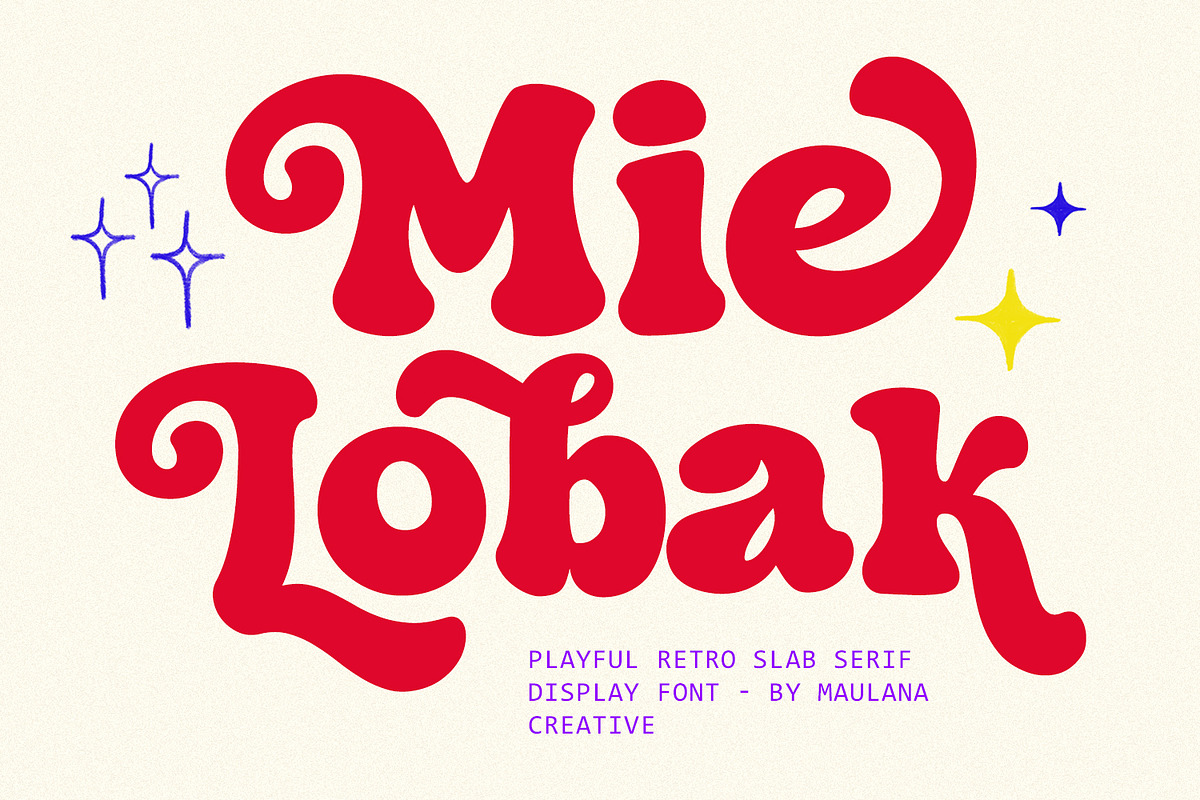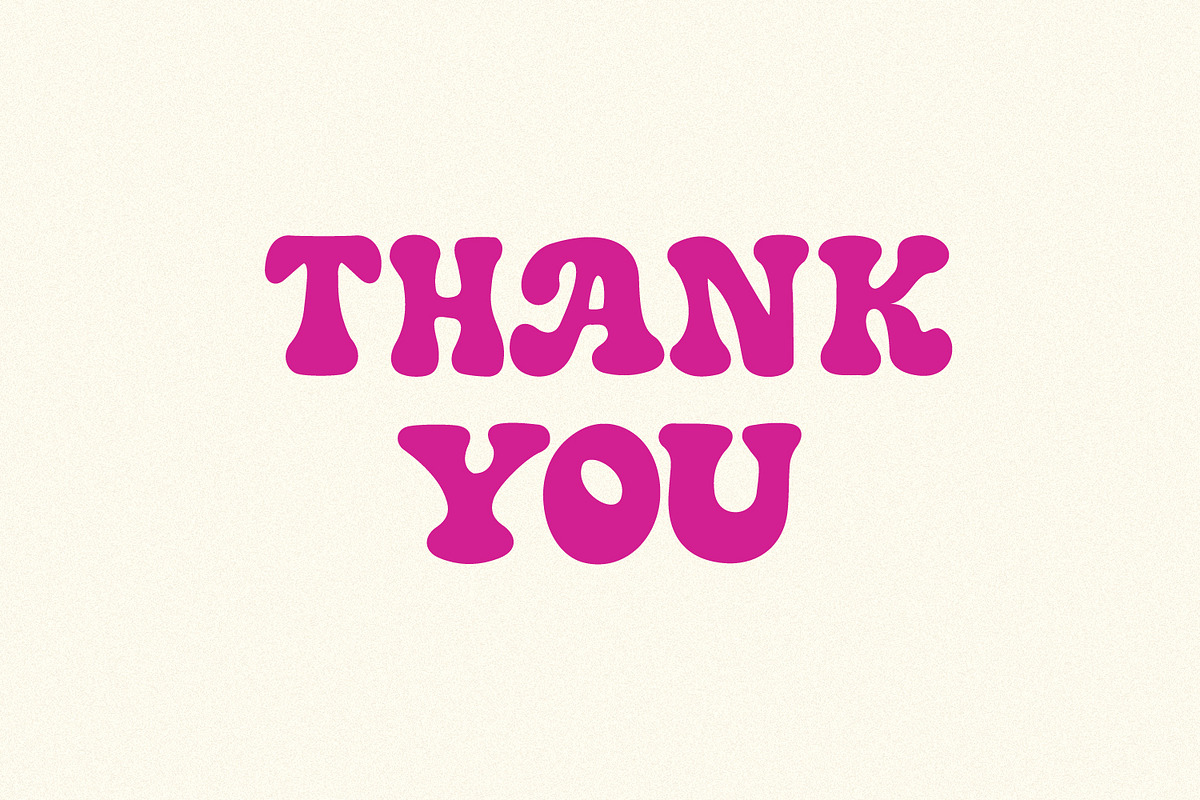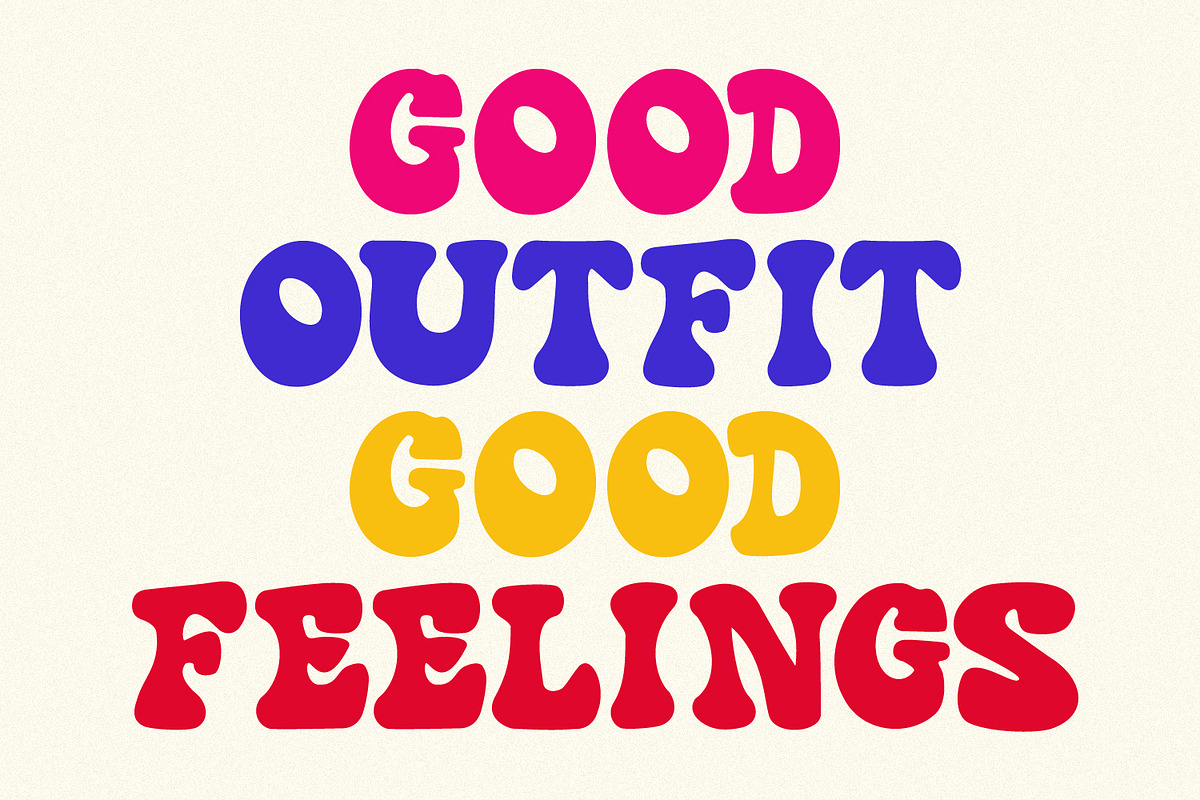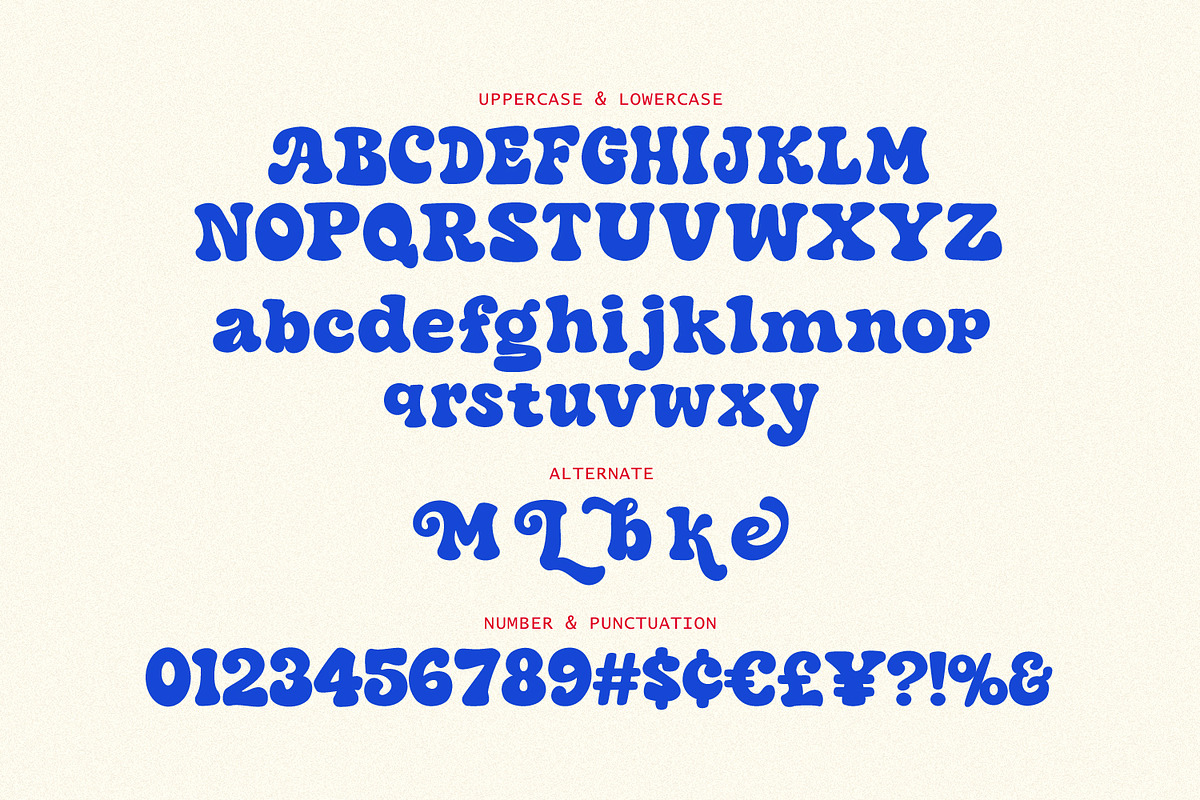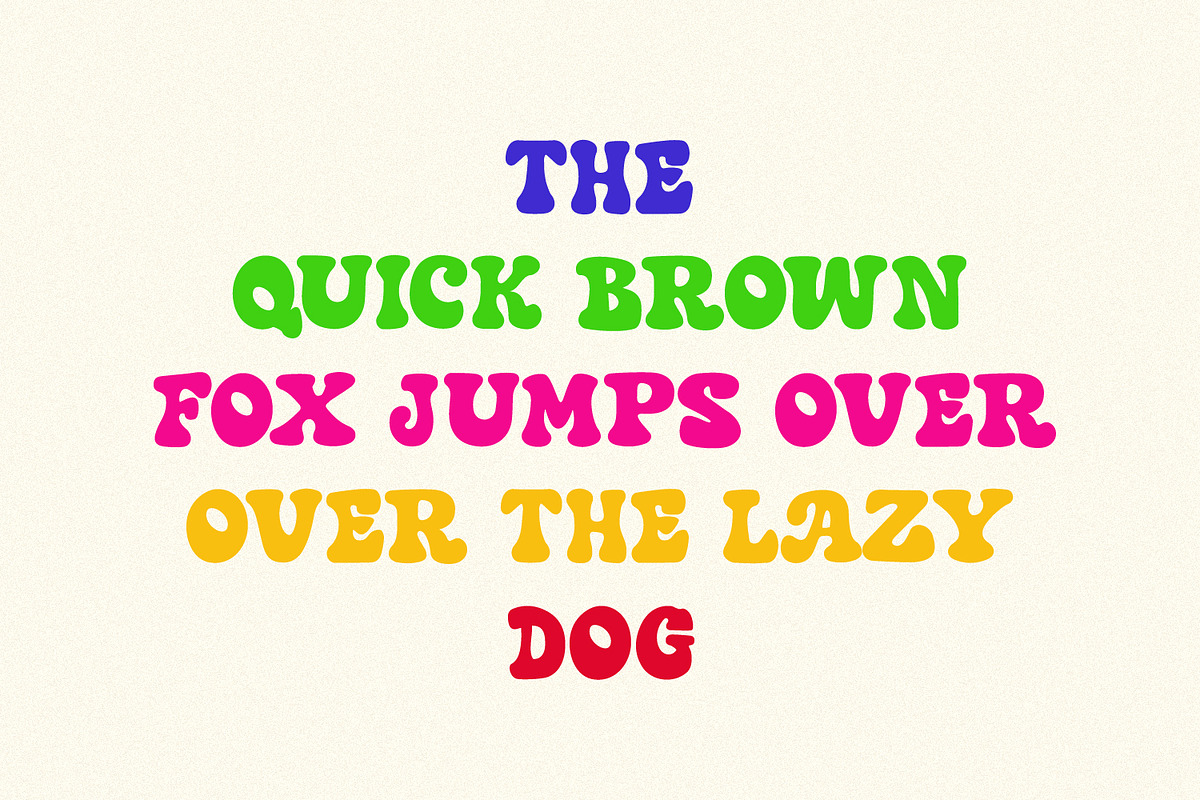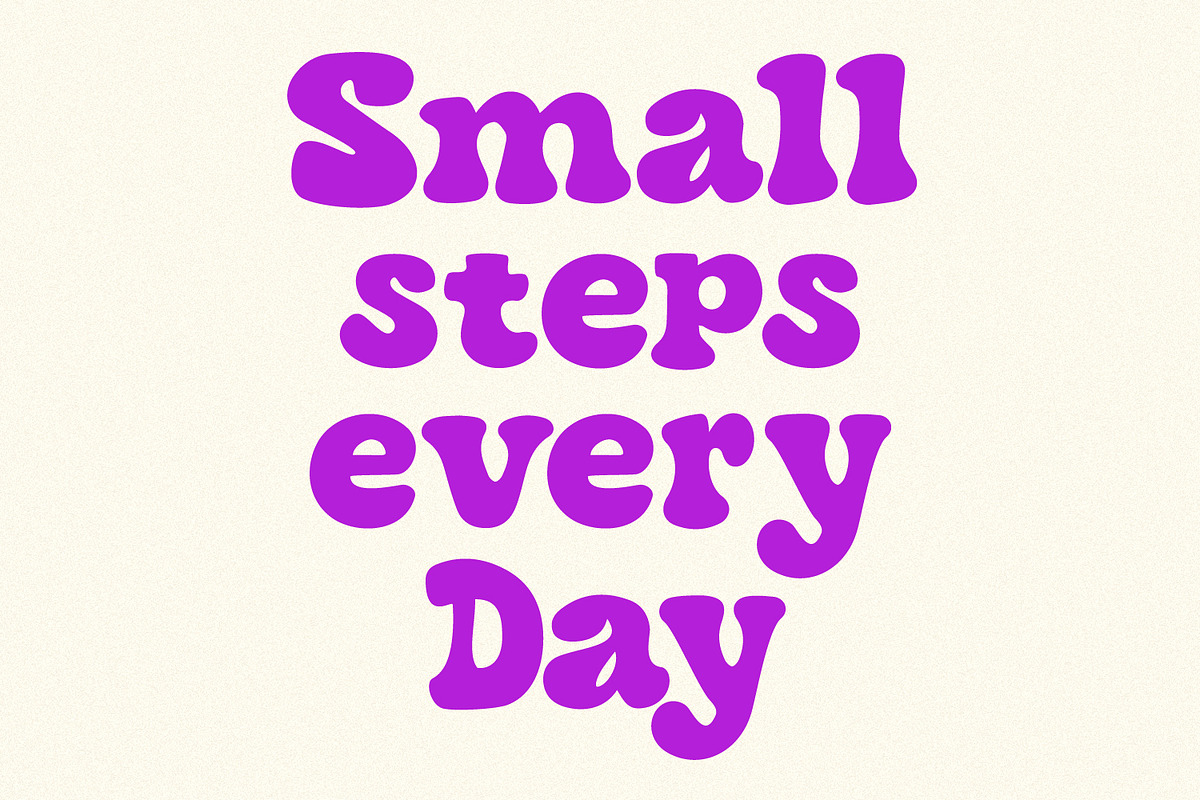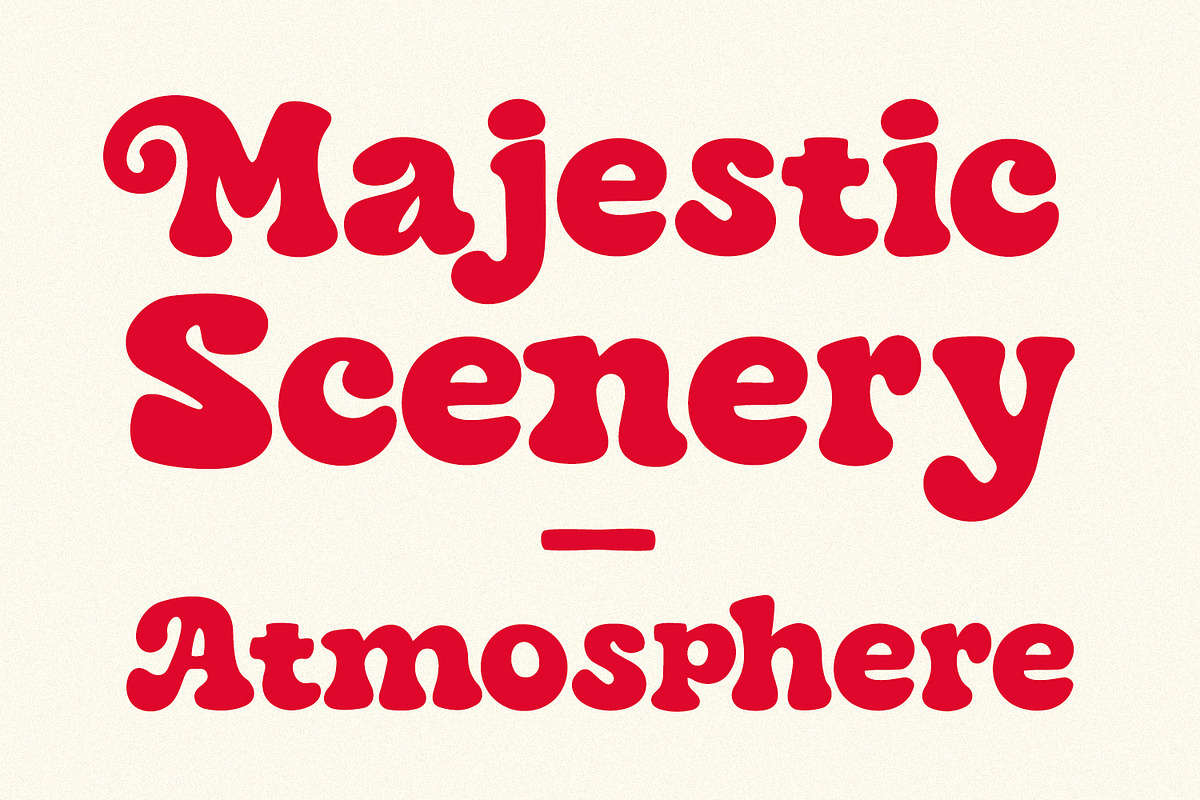
Mie Lobak Playful Retro Slab Serif
Step back into the groovier days with Mie Lobak, a playful retro slab serif font designed to bring a burst of nostalgic energy to your creative projects. Crafted by Maulana Creative, this font features thick, chunky strokes and whimsical curves that capture the fun and funk of the 1960s and 70s. Its bold, high-contrast personality makes it perfect for eye-catching headlines, vintage posters, trendy designs, and brand identities that don’t take themselves too seriously. With a full set of alternates and multilingual support, Mie Lobak offers the flexibility to create truly unique and majestic typography.
- Full character set
- Numbers, Punctuation, and Symbols
- Alternates for a natural handwriting flow